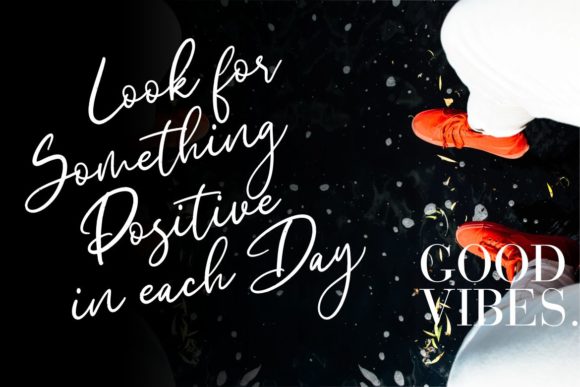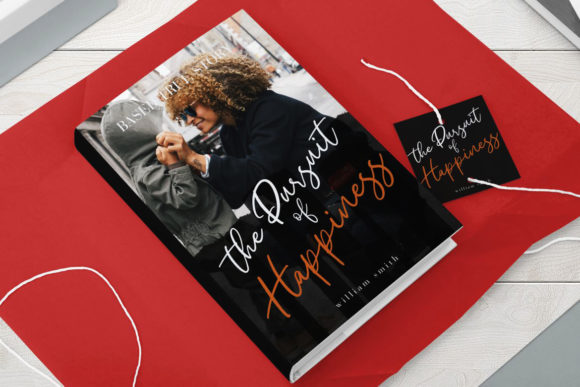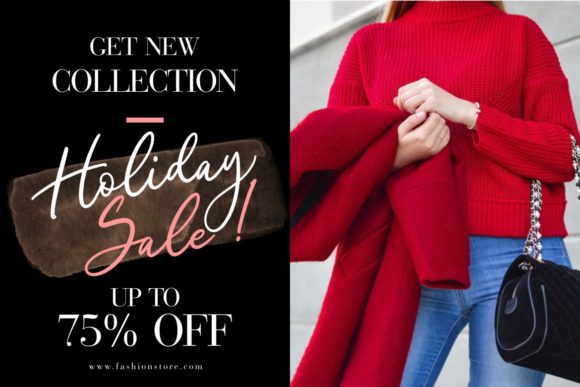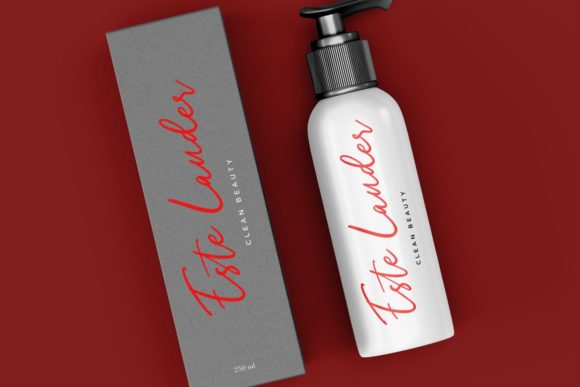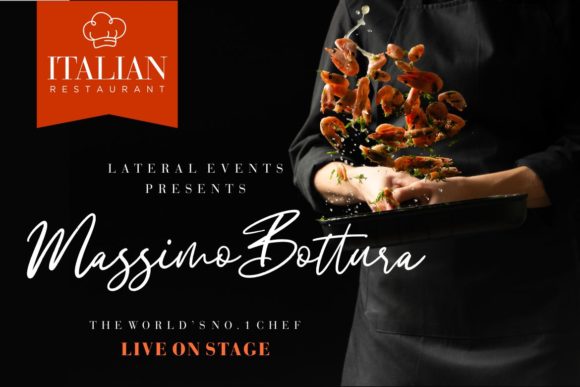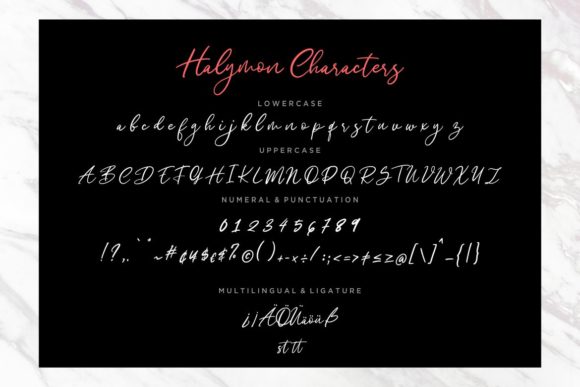
Introducing Halymon Font: A Beautiful Handwritten Script with a Positive Vibe
Are you on the lookout for a font that can add a touch of elegance and sophistication to your designs? Look no further than Halymon Font, a stunning handwritten script that exudes a positive vibe and flowing calligraphy. With its incredibly versatile style, Halymon is perfect for designers and crafters who want to create spectacular designs that capture the essence of their brand or project.
What Makes Halymon Font So Special?
Halymon Font is a beautiful handwritten font that boasts a unique and distinctive style. Its flowing calligraphy and positive vibe make it perfect for a wide range of design projects, from wedding invitations and branding materials to social media graphics and more. The font’s versatility is one of its standout features, allowing you to use it for both personal and commercial projects with ease.
Key Features of Halymon Font
• Beautiful Handwritten Script: Halymon Font features a stunning handwritten script that is both elegant and sophisticated.
• Positive Vibe: The font’s flowing calligraphy and positive vibe make it perfect for designs that require a touch of warmth and personality.
• Incredibly Versatile: Halymon Font can be used for a wide range of design projects, from wedding invitations and branding materials to social media graphics and more.
How to Use Halymon Font in Your Designs
Halymon Font is incredibly easy to use and can be incorporated into your designs in a variety of ways. Here are a few ideas to get you started:
• Wedding Invitations: Use Halymon Font to create beautiful wedding invitations that set the tone for a romantic and unforgettable celebration.
• Branding Materials: Add a touch of elegance and sophistication to your branding materials, such as business cards and brochures, with Halymon Font.
• Social Media Graphics: Use Halymon Font to create eye-catching social media graphics that capture the attention of your followers and help to build your brand.
• DIY Projects: Halymon Font is perfect for DIY projects, such as crafting and scrapbooking, where you want to add a personal touch to your creations.
Why Designers and Crafters Love Halymon Font
Designers and crafters love Halymon Font for its unique and distinctive style, which adds a touch of elegance and sophistication to any design project. The font’s versatility and ease of use make it perfect for a wide range of projects, from personal crafts to commercial designs. Here are a few reasons why designers and crafters love Halymon Font:
• Unique Style: Halymon Font boasts a unique and distinctive style that sets it apart from other fonts.
• Versatility: Halymon Font can be used for a wide range of design projects, from wedding invitations and branding materials to social media graphics and more.
In conclusion, Halymon Font is a beautiful handwritten script that boasts a positive vibe and flowing calligraphy. Its incredibly versatile style makes it perfect for designers and crafters who want to create spectacular designs that capture the essence of their brand or project. With its ease of use and unique style, Halymon Font is sure to become a favorite among designers and crafters.